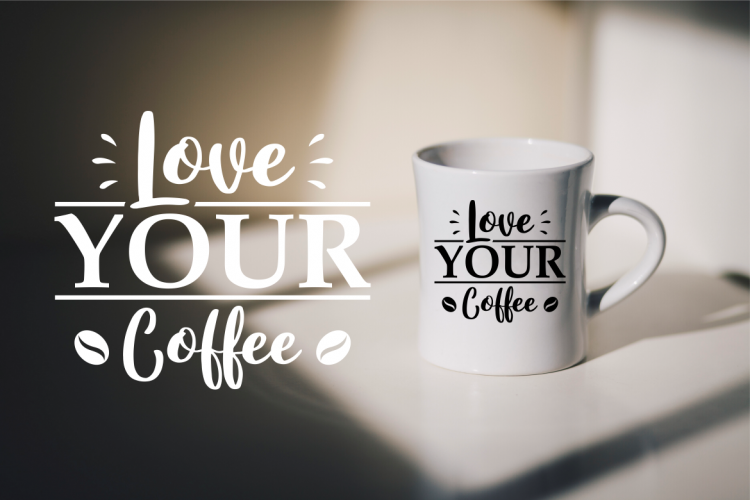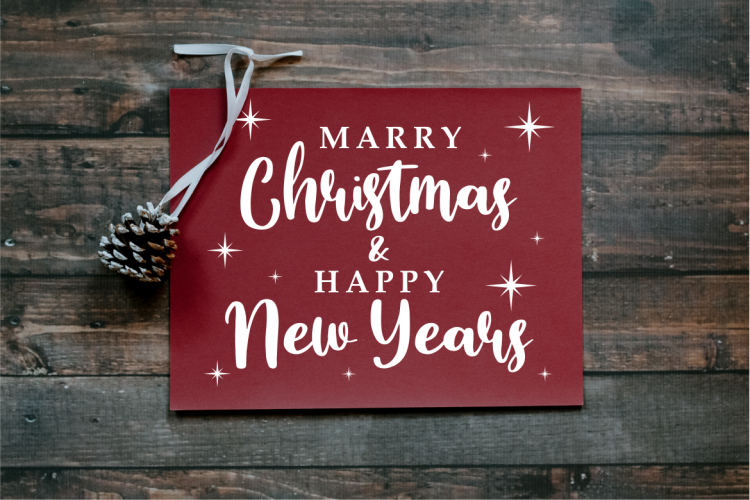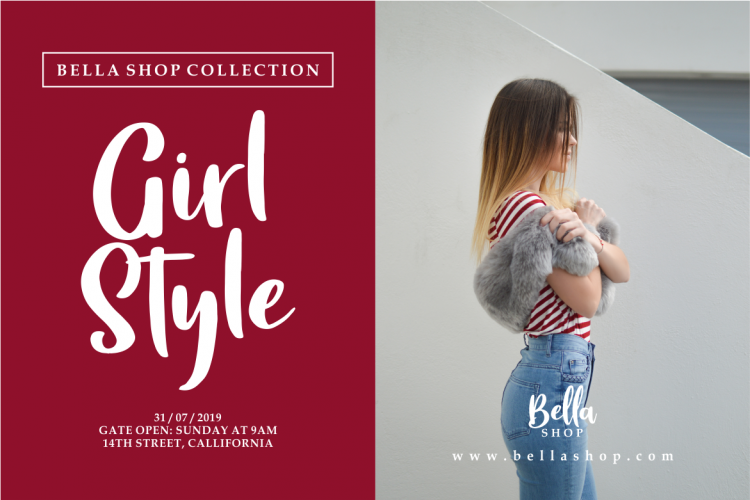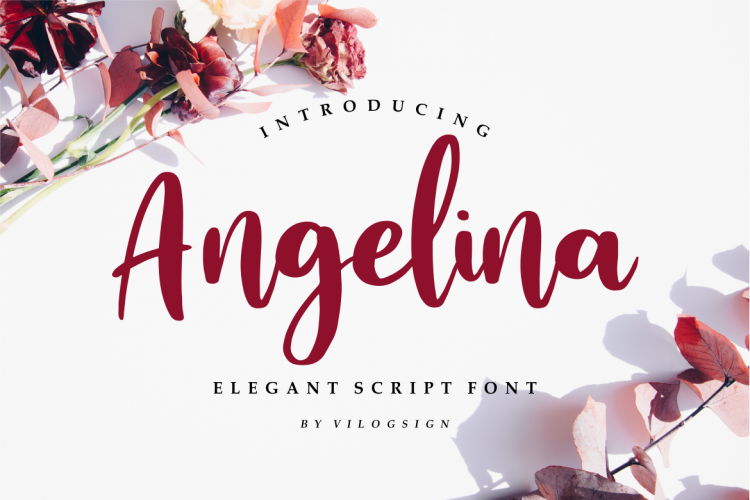
Angelina Playful Script Font
Angelina Playful Script Demo Font
This is a script type, with natural script curves and smooth lines. Introducing Angelina Font. With natural touch make this font so beautiful and cute. This font equipped with all alternate of lowercase, so you can choose the best for your needs. This font is highly recommended for those of you who want to make it for Logo, Quotes, Magazine, Fashion, Branding, and others.